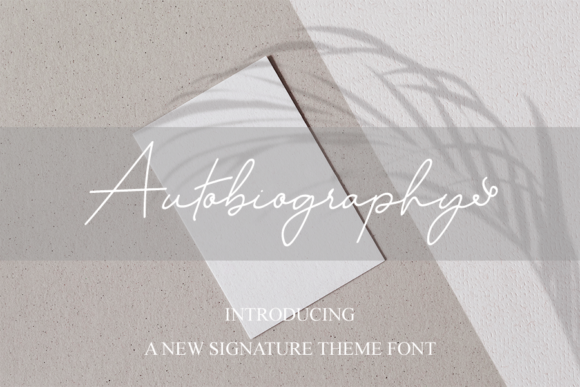
Introducing Autobiography Font, the captivating script font that will transform your digital creations into masterpieces!
Embark on a journey of self-expression with Autobiography, the enchanting font that dances across your screen with grace and elegance. Each meticulously crafted letter is a work of art, infused with the warmth of handwriting, inviting you to pen down your most heartfelt messages and inspire others.
Whether you're crafting a heartfelt birthday invitation, a special announcement, or simply adding a touch of charm to your social media posts, Autobiography Font seamlessly adapts to your needs, elevating your words with its timeless allure. Its flowing lines and delicate curves will captivate your audience, leaving an unforgettable impression.
Dive into a world of endless possibilities with Autobiography Font, where your imagination reigns supreme. Let your messages radiate with authenticity and charm, capturing the attention of everyone who beholds them.
Embrace the allure of Autobiography Font today, and embark on a journey of unforgettable digital storytelling!